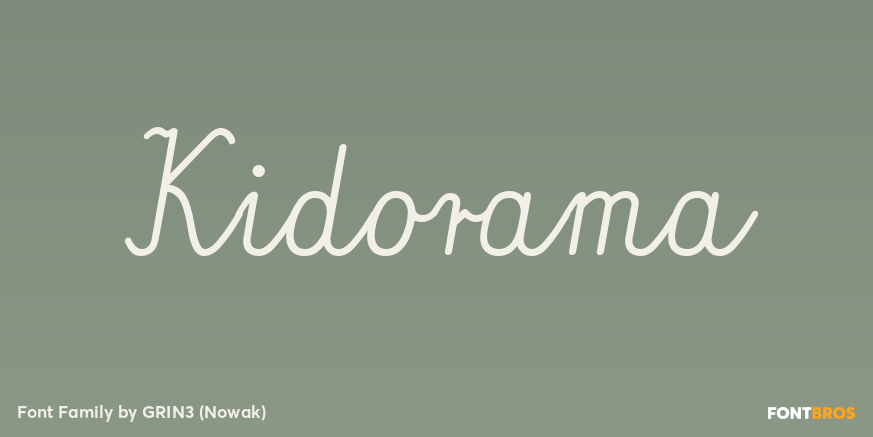
Kidorama
About Kidorama
Kidorama is a hand-drawn script inspired by the calligraphic models used in Polish primary school. This font is perfect for use in children\’s oriented publishing. Language support includes Western, Central and Eastern European character sets, as well…